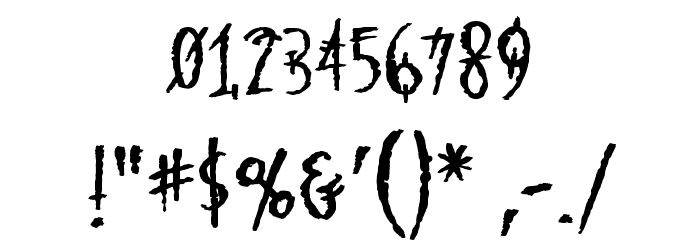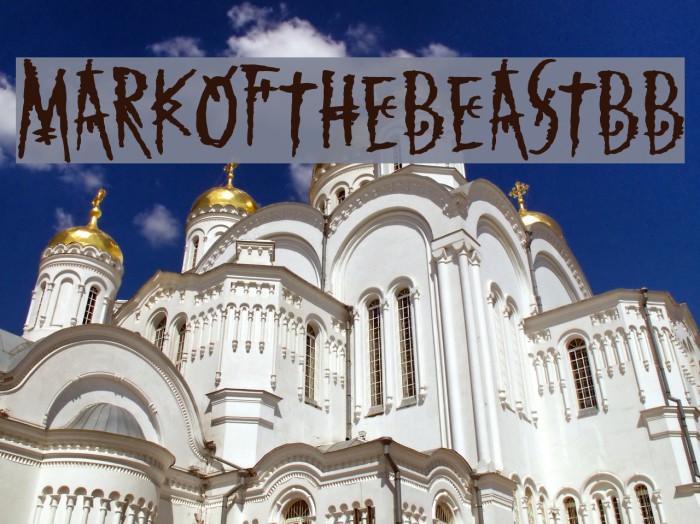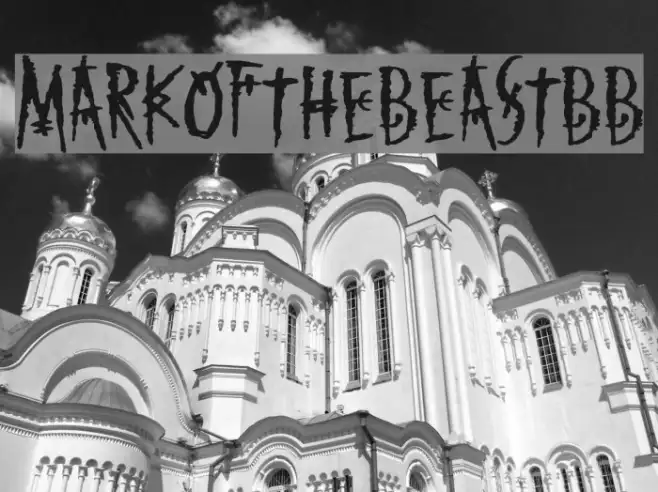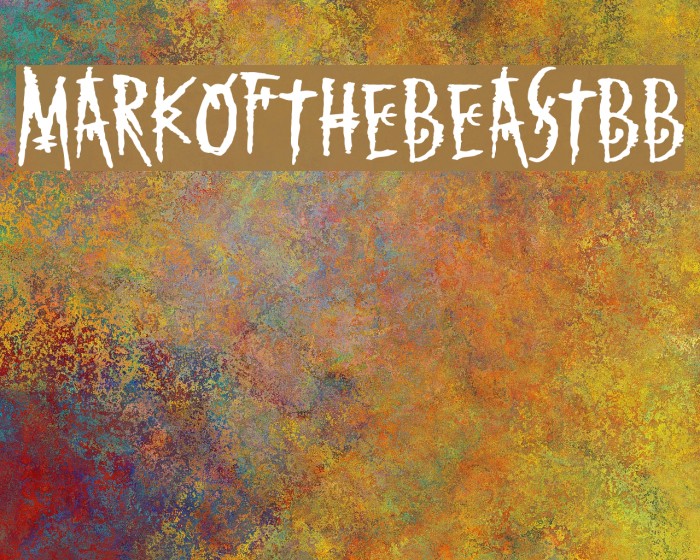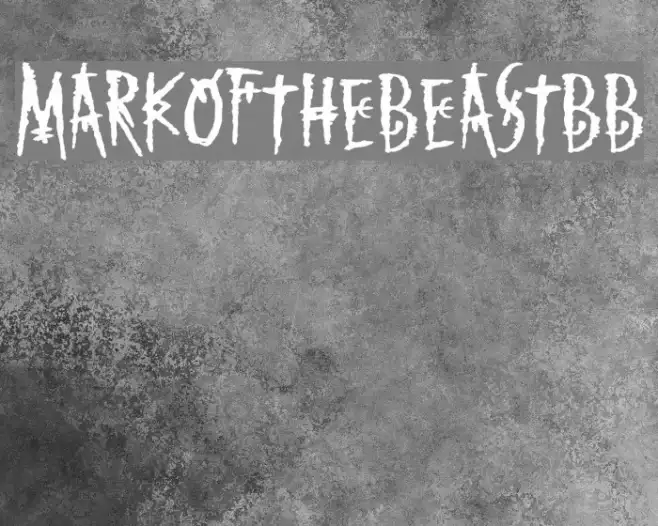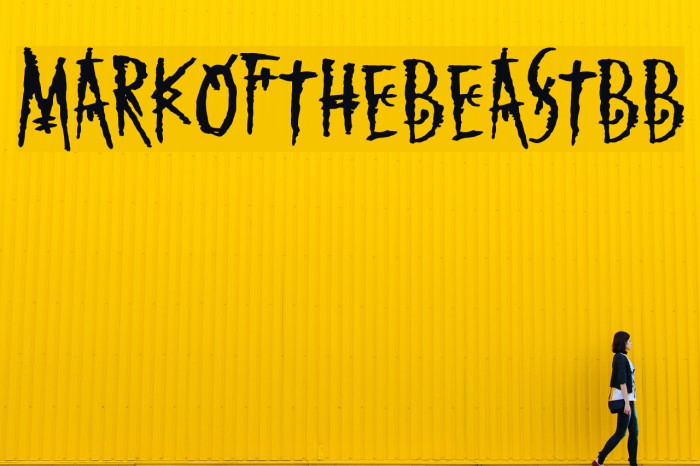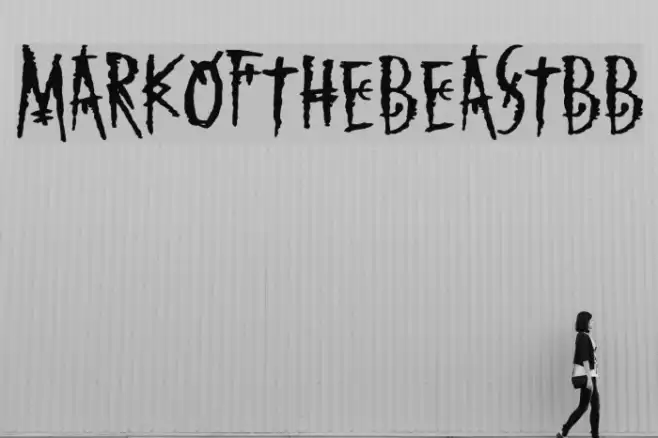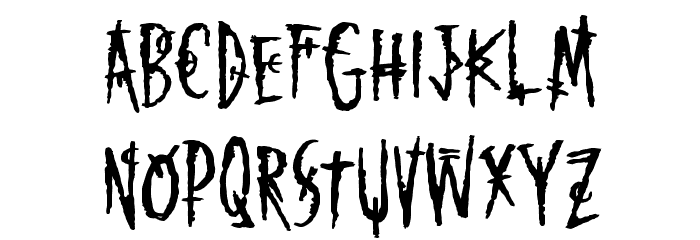
MarkoftheBeastBB Font
This font features a rugged, distressed appearance with sharp, jagged edges that give it a raw and edgy feel. The characters are unevenly shaped, resembling hand-drawn letters with a chaotic and rebellious style. The uppercase and lowercase letters maintain a consistent theme, with each character appearing as if it has been scratched or carved. The numbers and special characters follow the same aesthetic, ensuring a cohesive look across all text elements. This font is ideal for designs that require a bold, unconventional, and slightly ominous touch.
A rugged, distressed font with sharp, jagged edges and a rebellious style.
• Proposed Projects: Perfect for horror-themed posters, album covers, edgy branding, and Halloween invitations.
• Category: Decorative/Display
• Contrast: High
• Overall Style: Decorative
• Use Case: Headlines, Logos